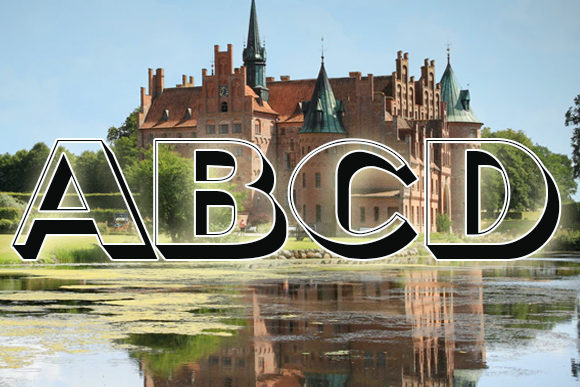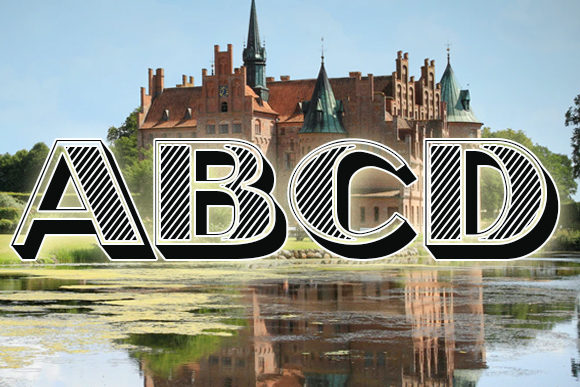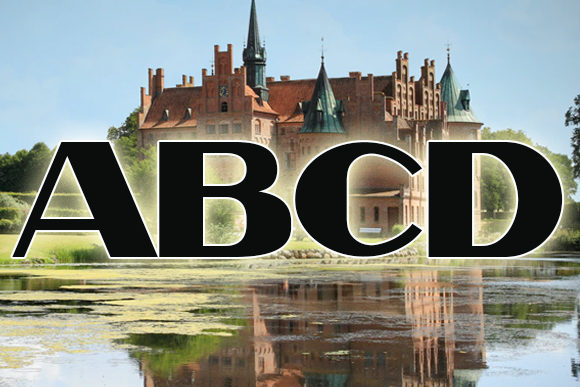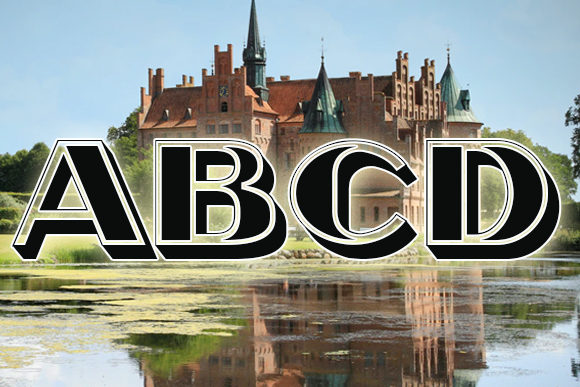
Introduction to Odense Font
Remember that moment when you’re working on a creative project, and you can’t quite put your finger on the missing piece? That’s when the perfect font can make all the difference. For designers, finding the right font can elevate a design from good to great, and that’s exactly what the Odense Font does. This cool, outlined, and vintage styled display font is a game-changer for any design project.
With its unique blend of modern and classic elements, the Odense Font is perfect for adding a touch of sophistication to your designs. Whether you’re working on a billboard, poster, or flyer, this font is sure to grab attention and leave a lasting impression. Plus, with its transparent background, you can easily layer it with other design elements to create a truly eye-catching look.
Discover the Power of Odense Font
So why is the Odense Font so valuable for designers? For starters, it’s a high-quality design resource that’s available for free download, making it accessible to designers of all levels. Whether you’re working on a personal project or a client’s design, this font is sure to impress. With its versatility and style, the Odense Font is a must-have for any creative project.
Key Features of Odense Font
- High-quality design resource for creative projects: The Odense Font is designed to provide a professional and elegant look for various design applications.
- Transparent background: The Odense Font features a transparent background, allowing for easy customization and integration with other design elements.
- Supports various languages: The Odense Font supports multiple languages, making it a versatile choice for designers working on international projects.
- High-resolution design: The font is designed at a high resolution, ensuring crisp and clear text rendering in various design applications.
Honest Review: Odense Font
As a designer, I’m always on the lookout for high-quality fonts to elevate my creative projects. Recently, I stumbled upon the Odense Font and was impressed by its clean, modern design.
- ✨ High-quality design: The Odense Font features crisp lines, smooth curves, and a transparent background that makes it perfect for use on any design resource.
- ✨ Versatile: This font is suitable for a wide range of creative projects, from branding and logos to digital interfaces and publications.
- ⚠️ Limited font styles: The Odense Font is available in a limited number of font styles, which might not be suitable for designers who prefer a wider range of options.
- ⚠️ Limited language support: The font only supports a limited number of languages, which might be a concern for designers who work on projects that require multilingual support.
Overall, I’m impressed with the Odense Font’s design quality and versatility. While it may have some limitations, it’s a great addition to any designer’s library and can be a valuable resource for creative projects.